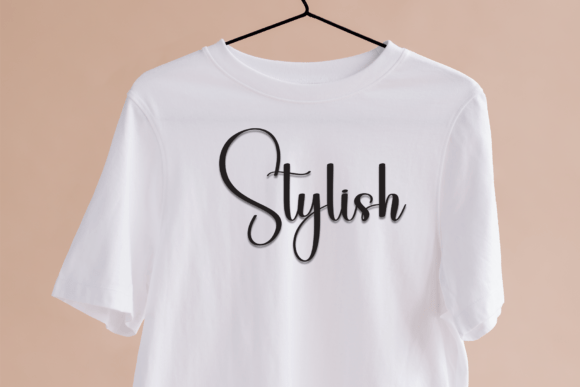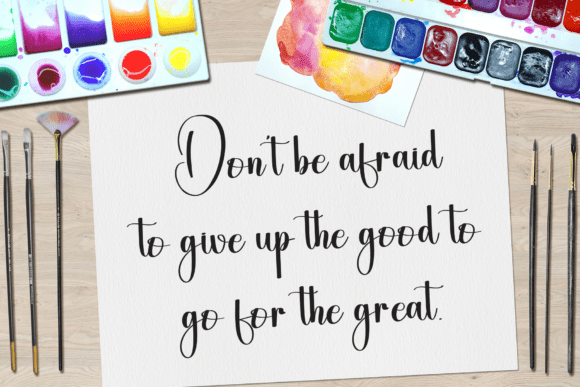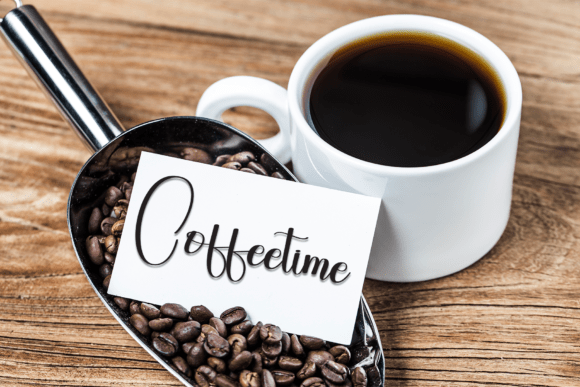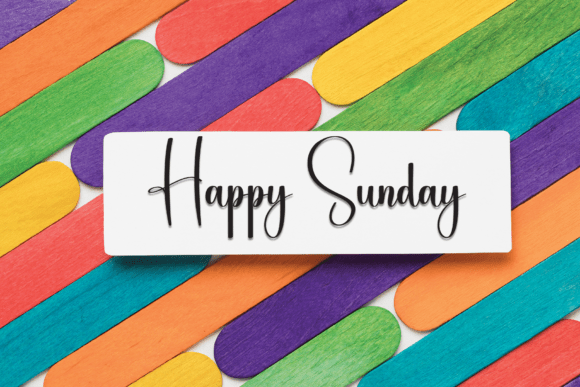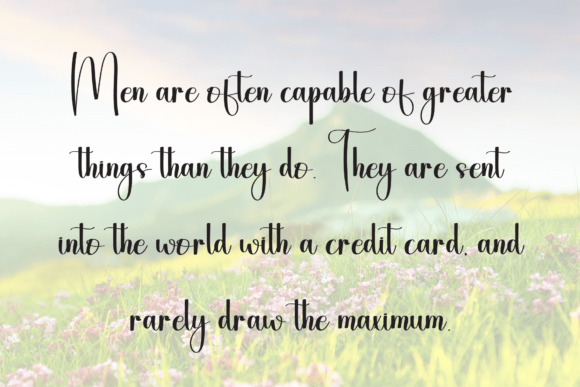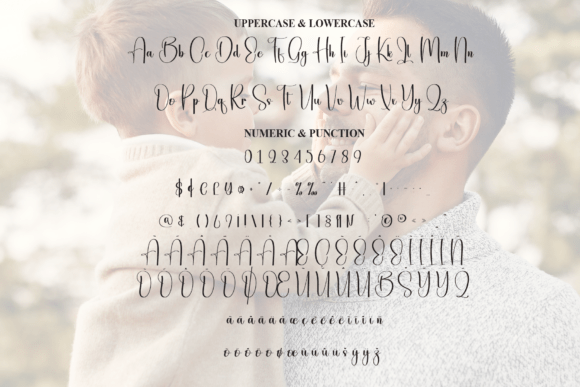
Discover the Charming Allure of Father Font: Elevate Your Designs with a Playful Touch
Are you looking for a font that can add a dash of playfulness and friendliness to your designs? Look no further than the Father Font, a delightful handwritten font that is sure to capture the hearts of your audience. With its unique blend of sweetness and charm, this font is perfect for designers and crafters who want to create enchanting wedding invitations, heartfelt cards, and other designs that exude joy and charisma.
The Unique Characteristics of Father Font
Father Font is a carefully crafted handwritten font that boasts a distinctive and endearing quality. Its letters are designed to be highly legible, making it easy to read and understand, even at small sizes. The font’s playful and fun vibe is achieved through its subtle imperfections and varying line widths, giving it a human touch that is hard to resist.
One of the standout features of Father Font is its versatility. It can be used for a wide range of design projects, from romantic wedding invitations and heartfelt greeting cards to social media graphics, posters, and more. Whether you’re looking to create a whimsical and romantic atmosphere or a bold and playful statement, Father Font is the perfect choice.
Why Choose Father Font for Your Designs?
- Unique and Eye-Catching: Father Font is a one-of-a-kind font that is sure to grab attention and leave a lasting impression on your audience.
- Playful and Fun: This font’s playful and fun vibe is perfect for designers who want to add a dash of personality to their designs.
- Highly Legible: Despite its playful nature, Father Font is highly legible, making it easy to read and understand.
- Versatile: This font can be used for a wide range of design projects, from romantic wedding invitations to bold social media graphics.
How to Use Father Font in Your Designs
- Pair it with Other Fonts: Father Font pairs well with other fonts, especially sans-serif fonts. Try pairing it with a clean and simple font to create a striking contrast.
- Use it for Headings and Titles: Father Font is perfect for headings and titles, where its playful and fun vibe can really shine.
In conclusion, Father Font is a charming and endearing handwritten font that is perfect for designers and crafters who want to add a playful and fun touch to their designs. With its unique blend of sweetness and friendliness, this font is sure to capture the hearts of your audience and leave a lasting impression. Whether you’re creating wedding invitations, greeting cards, or social media graphics, Father Font is the perfect choice. So why wait? Download Father Font today and start creating designs that are truly extraordinary!